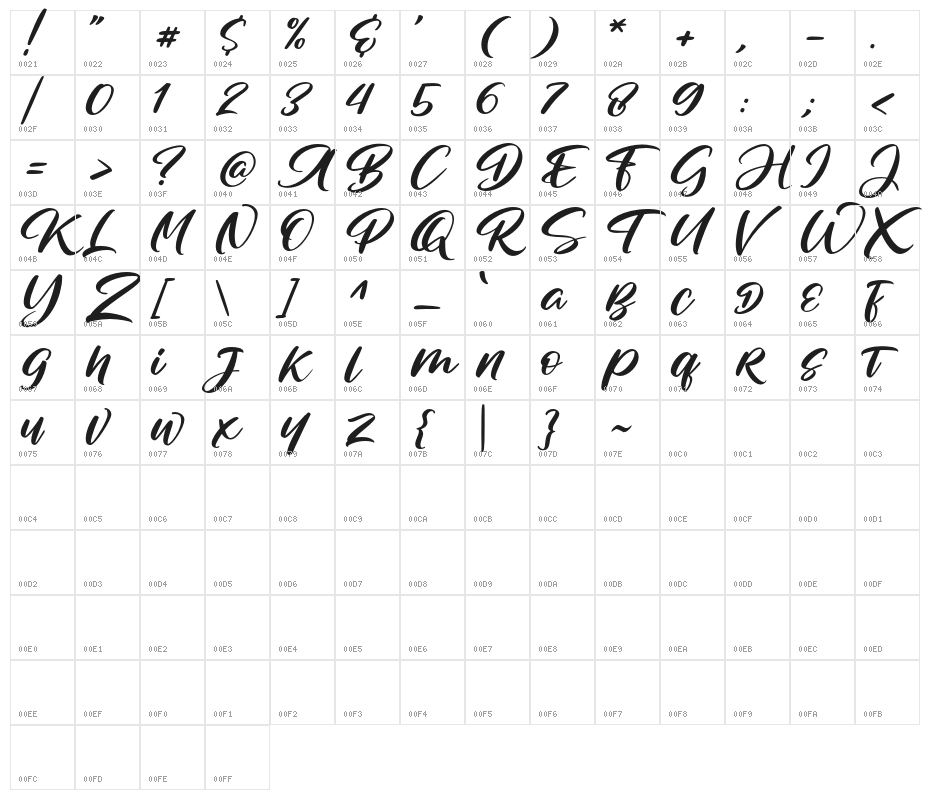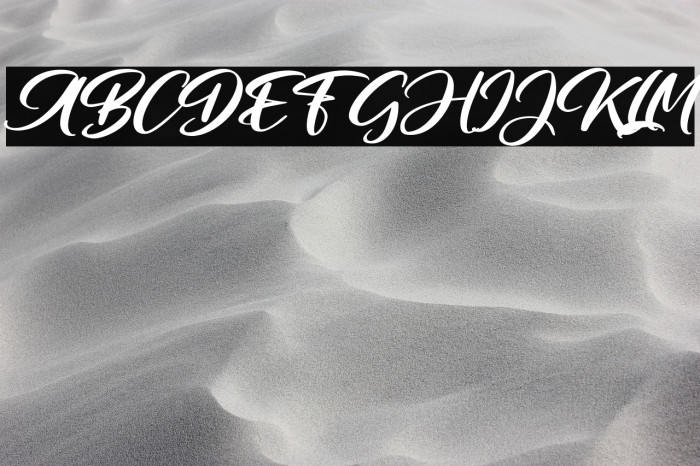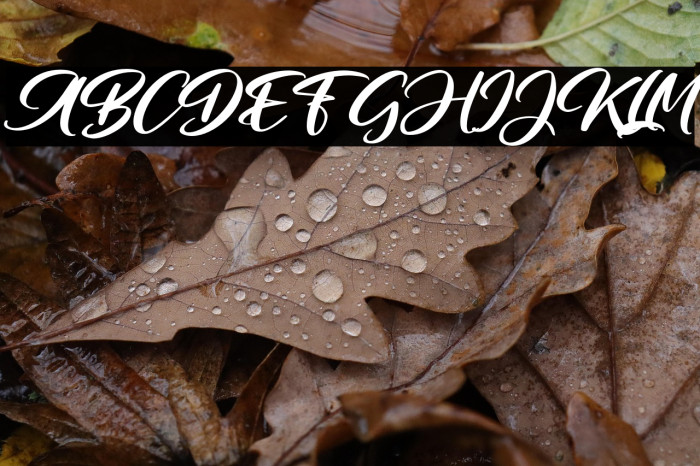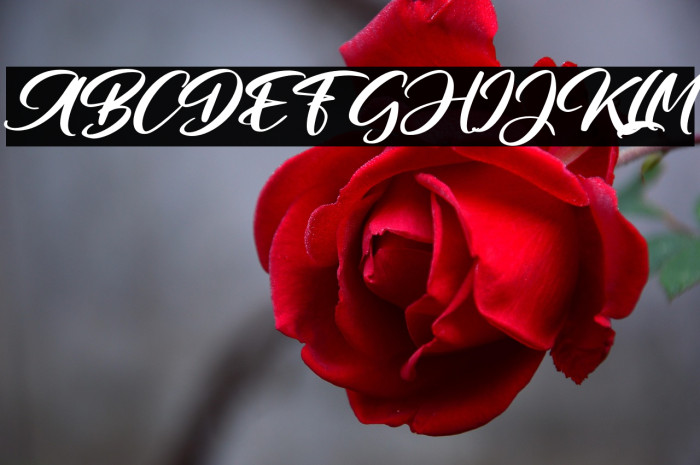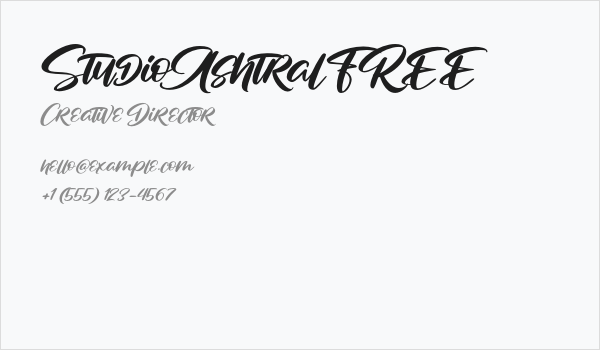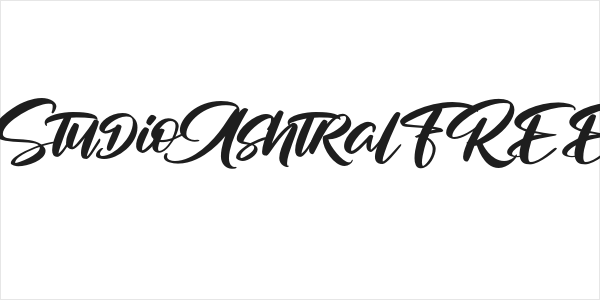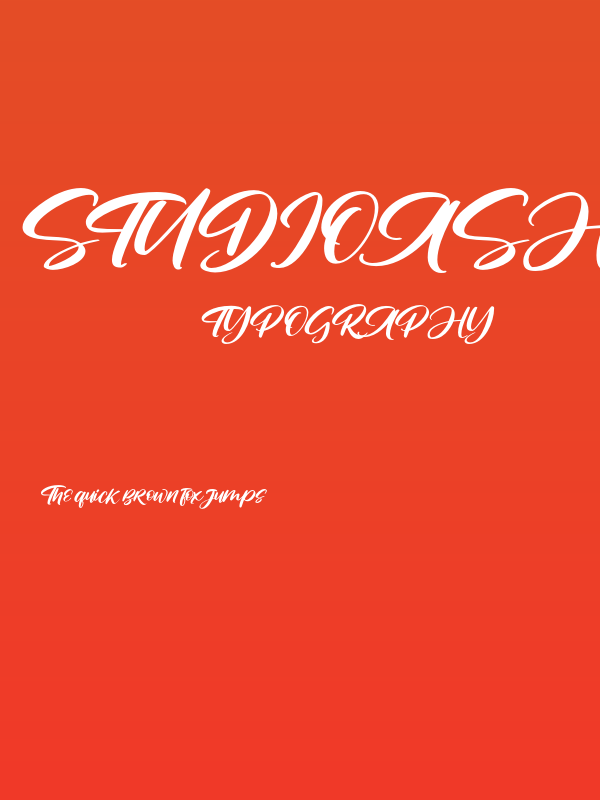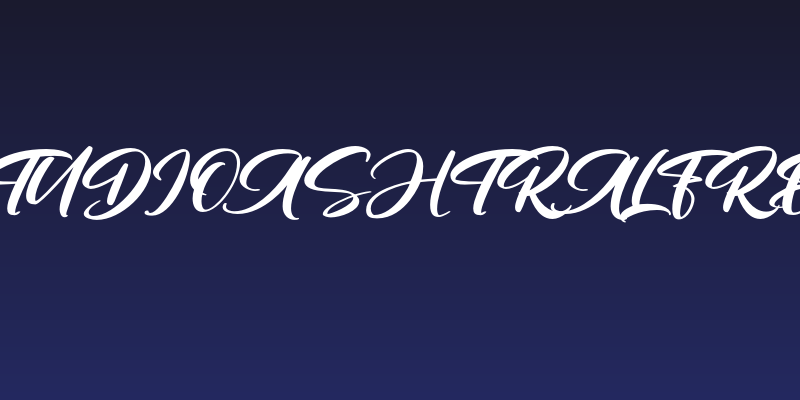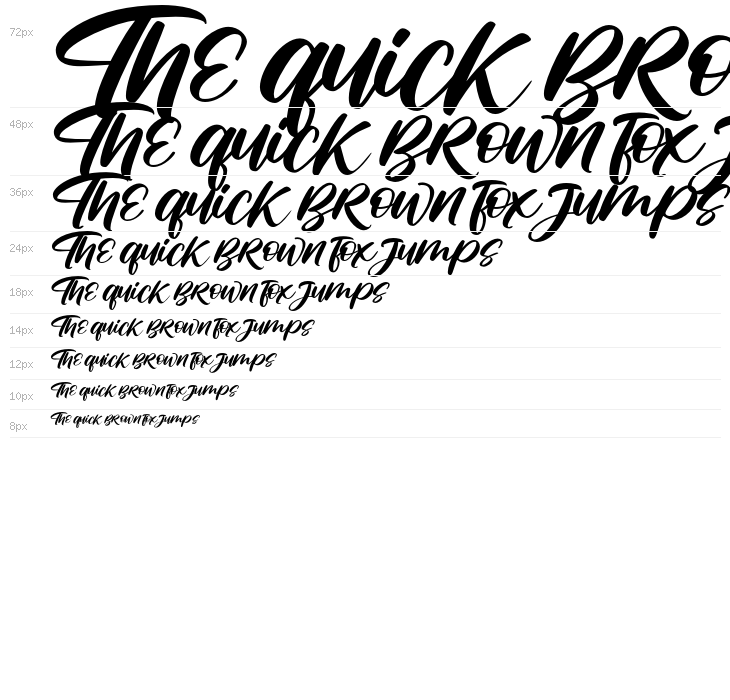
StudioAshtralFREE Font
StudioAshtralFREE Description
This font features a bold, expressive script style with a dynamic flow and elegant curves. The characters are interconnected, giving a sense of continuity and movement. The uppercase letters are slightly larger and more ornate, while the lowercase letters maintain a consistent rhythm. The numbers and special characters are designed to match the overall aesthetic, with a playful yet sophisticated appearance. The strokes are thick and confident, providing a strong visual impact. This font is ideal for creating eye-catching designs that require a personal touch.
| Use Case | Logos, Headlines, Invitations |
| Proposed Projects | Ideal for branding, invitations, greeting cards, and artistic projects that require a personal and elegant touch. |